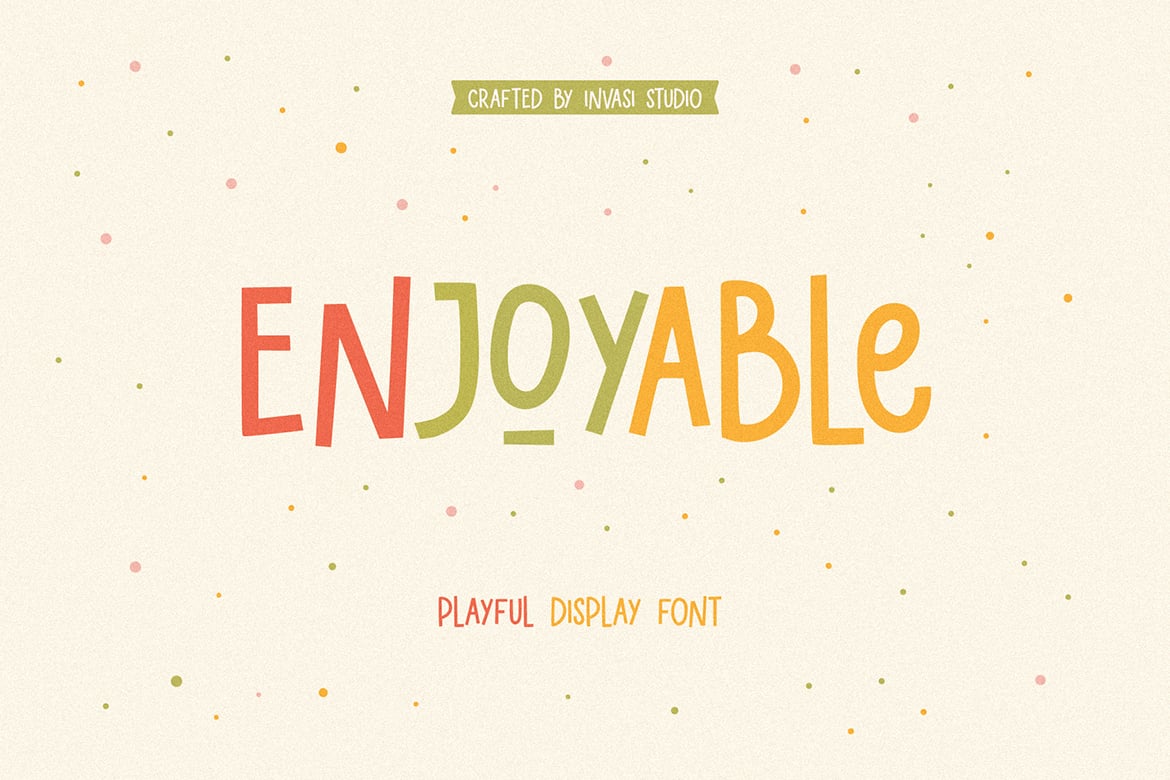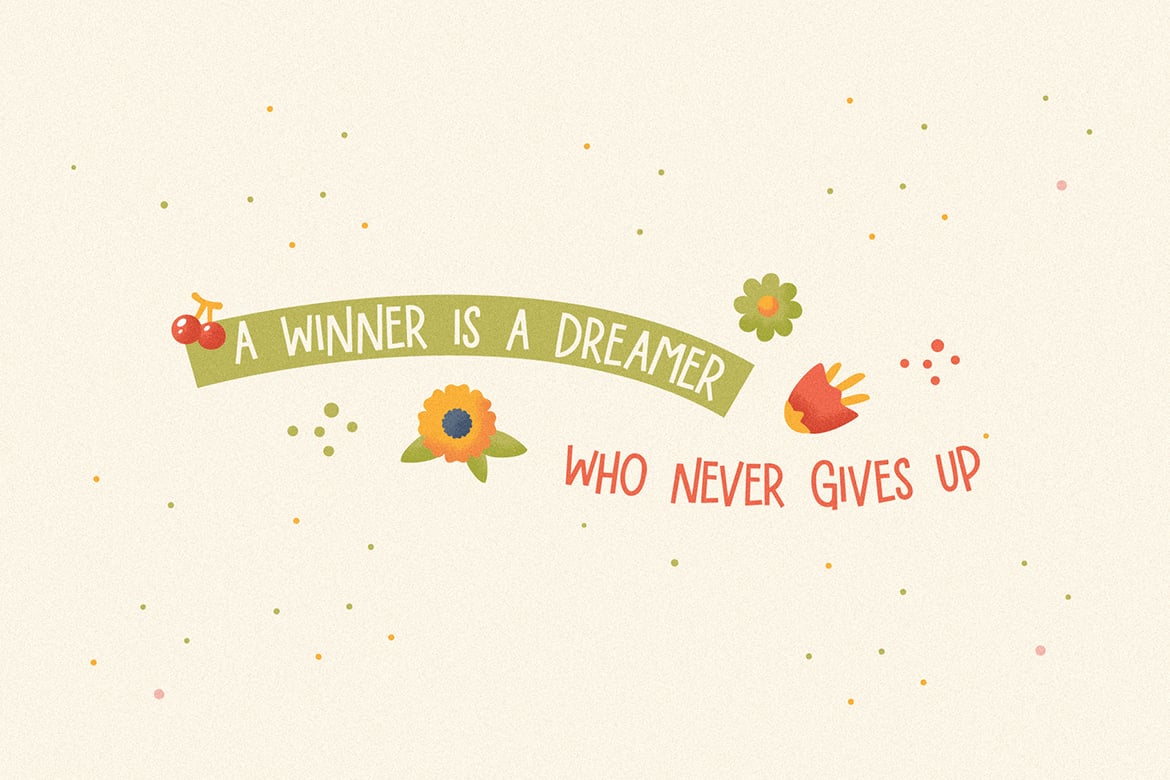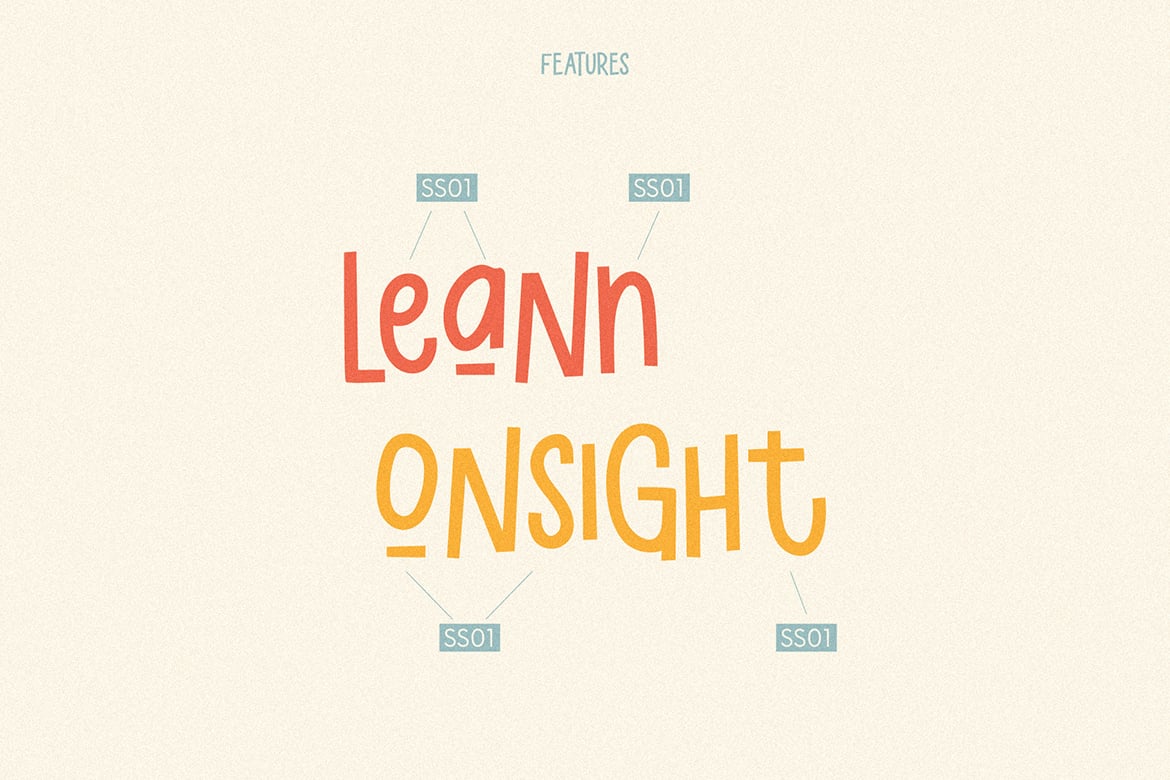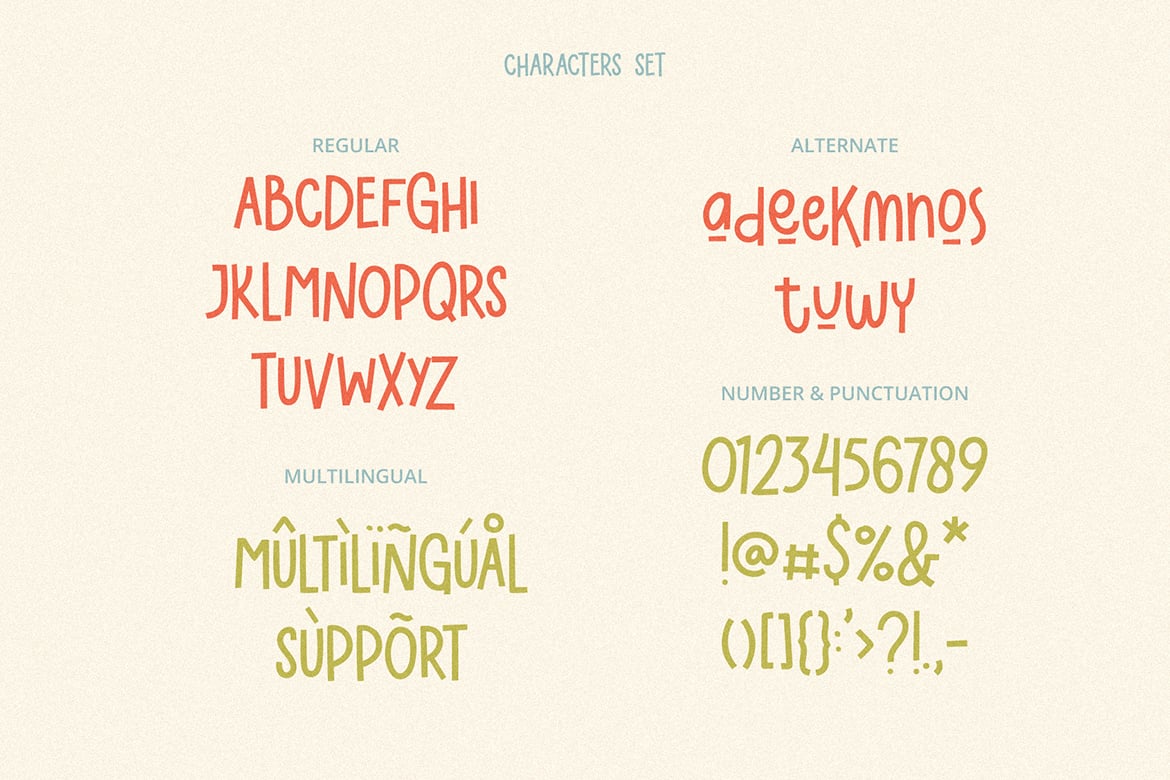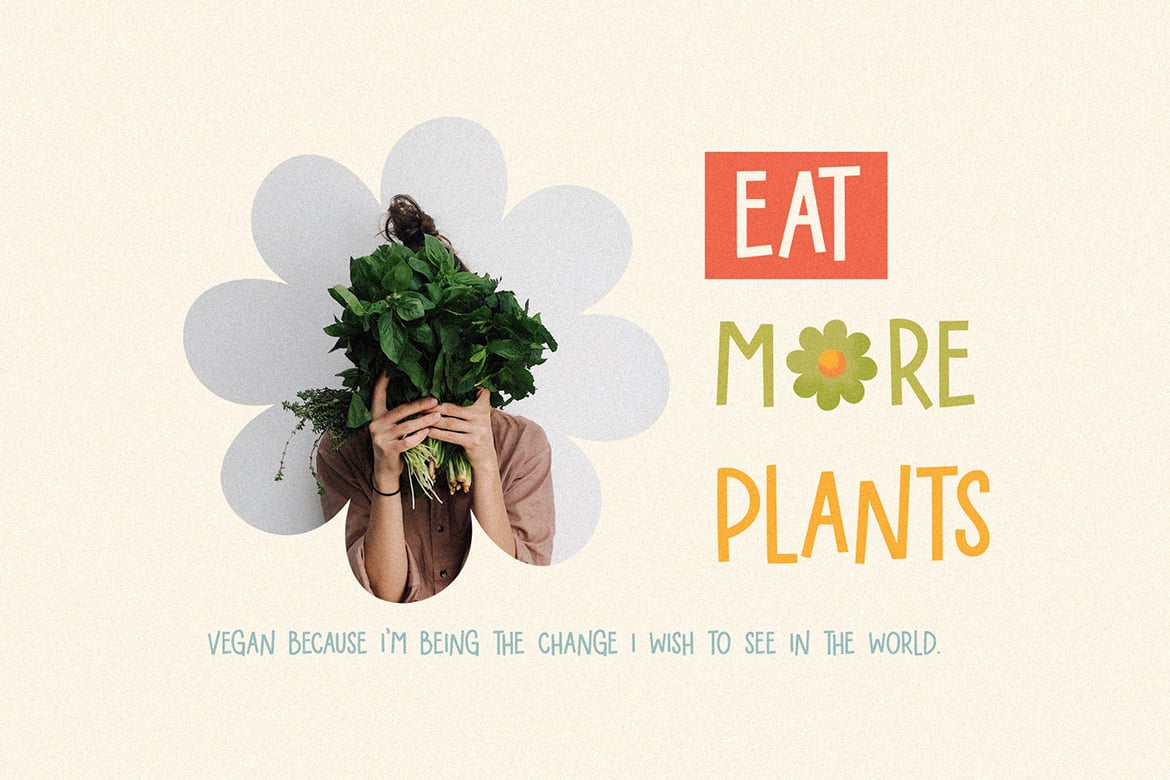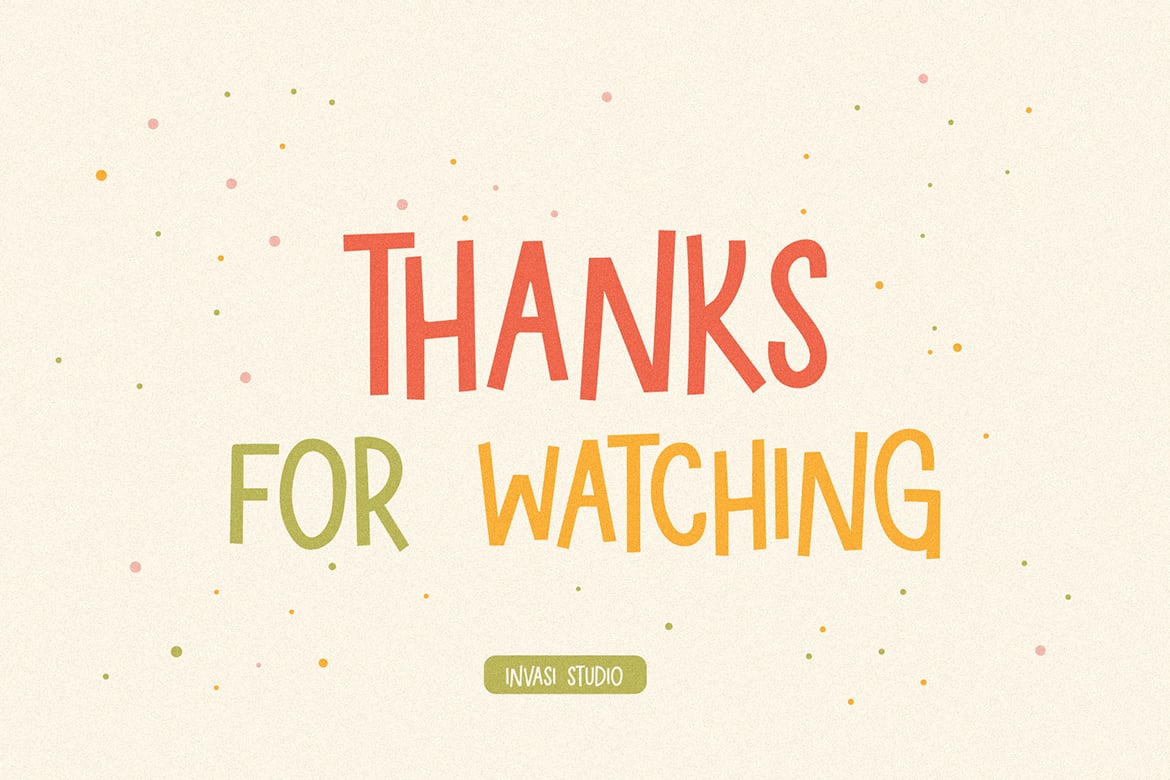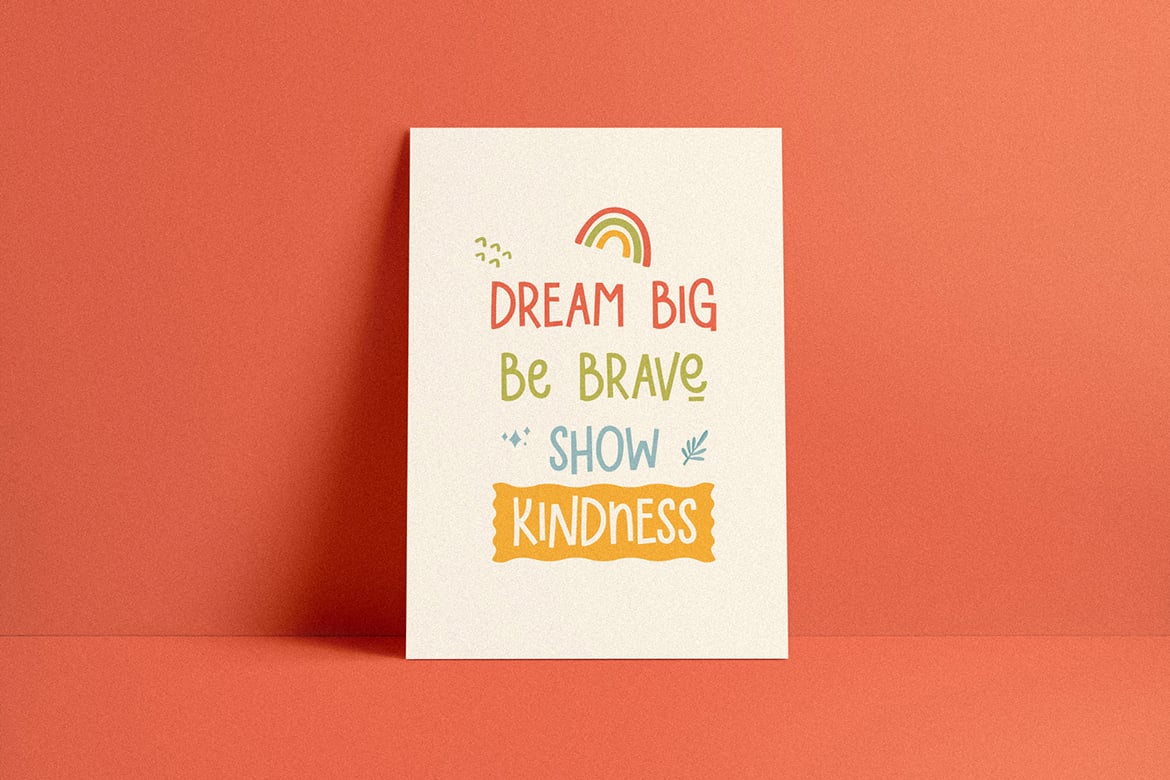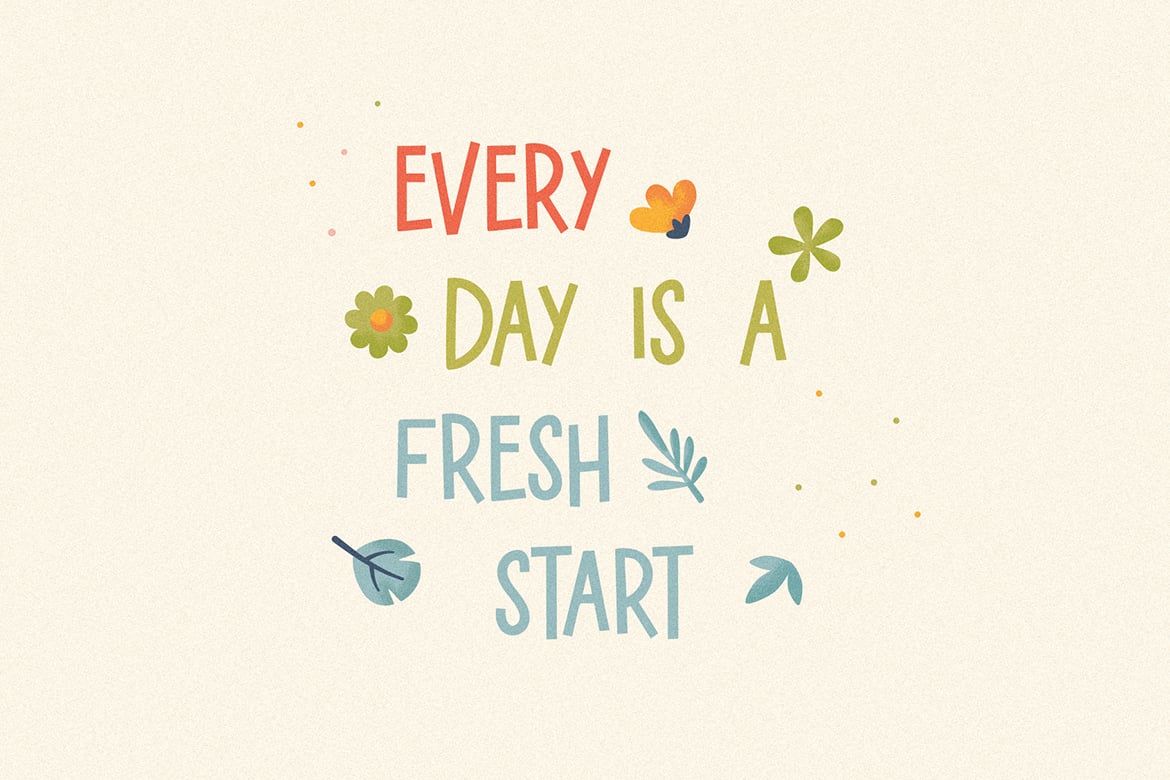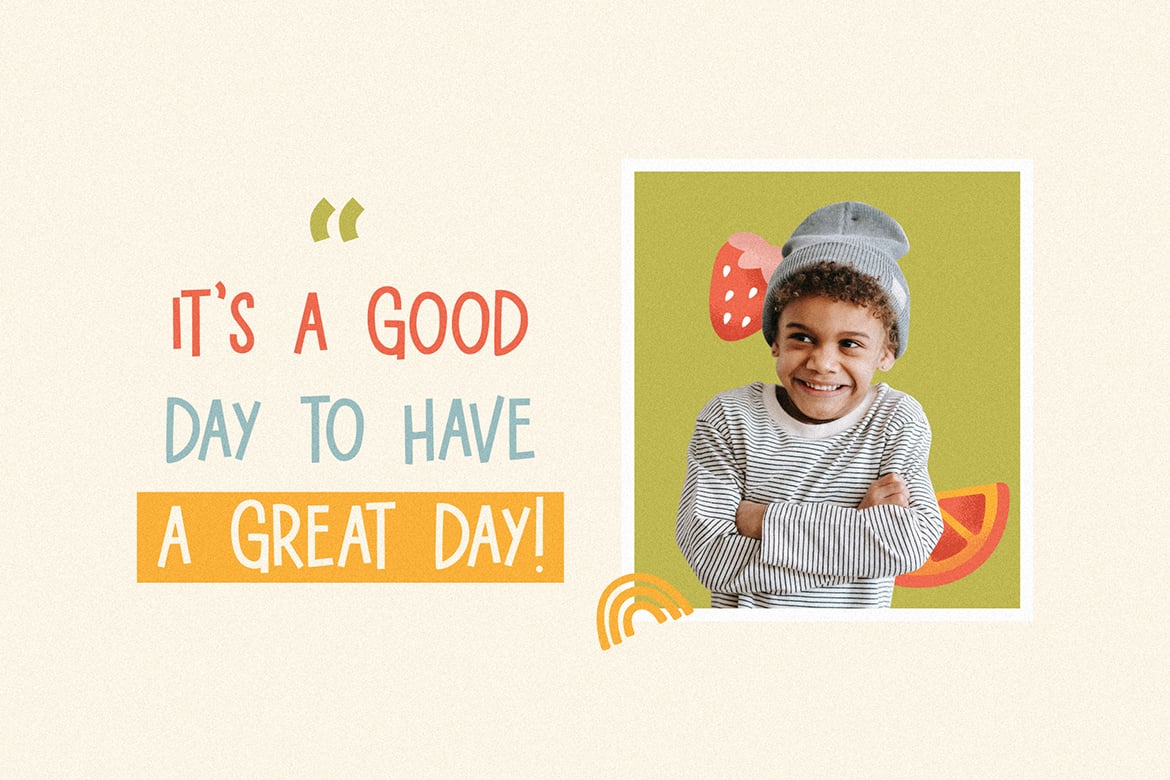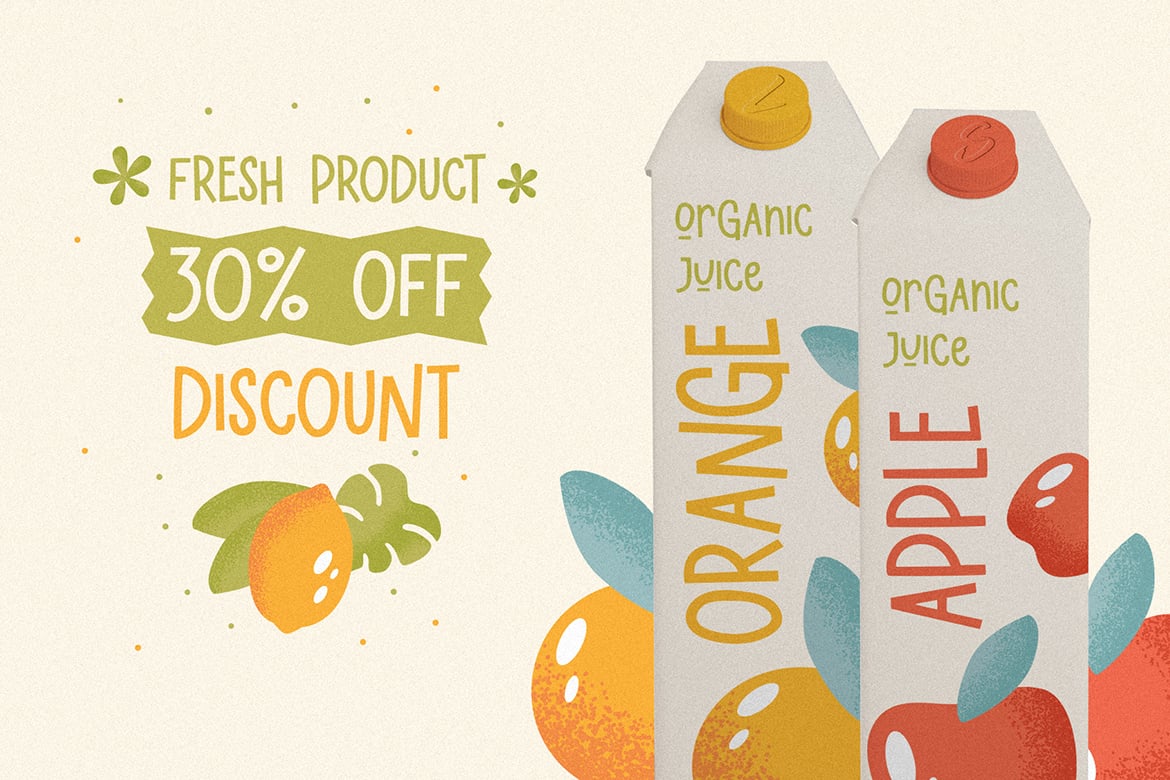
Enjoyable | Playful Font
Enjoyable born from hand-lettered style combines fun and playful glyph with all-caps font; delivering a fancy hand draw that is guaranteed to add an eye-catching suitable for your quotes, logo designs, brand imagery, product packaging, merchandise & social media posts.